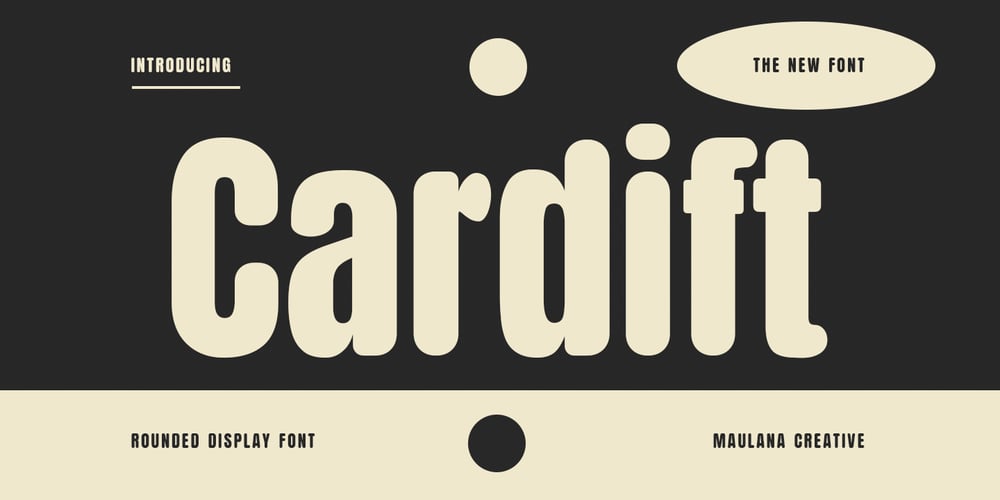
MC Cardift
MC Cardift font
MC Cardift Font Family was designed by Gilang Maulana and published by Maulana Creative. MC Cardift contains 1 styles and family package options. Cardift is a sans display font. With bold tall and rounded stroke, fun character with a ligatures. To give you an extra creative work. Cardift font support multilingual language. This font is good for logo design, Social media, Movie Titles, Books Titles, a short text even a long text letter and good for your secondary text font with sans or serif. Make a stunning work with Cardift font.Cheers,Maulana Creative